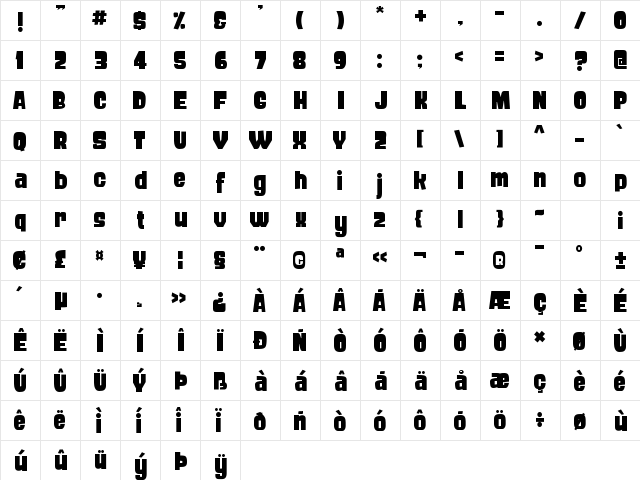
FROS BOLD Regular
Design Context for FROS BOLD Typeface
FROS BOLD is a composed and adaptable typeface that performs quietly and consistently across a wide range of design contexts. The heavy weight commands attention and anchors typographic hierarchies.